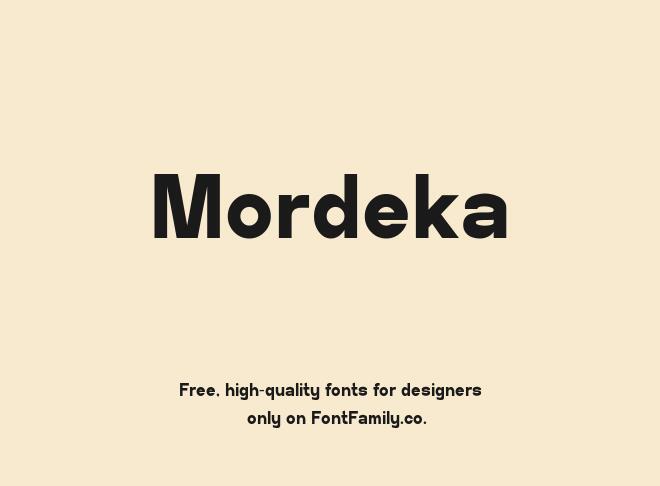
Mordeka Font
Mordeka Font is a bold, modern, and display typeface crafted by Creative Fabrica. It is characterized by its strong and dynamic style, making it perfect for creating eye-catching headlines, powerful posters, and impactful logos. Compared to other bold typefaces like Impact or Arial Black, Mordeka Font offers a unique blend of simplicity and personality. Its modern design lends itself well to contemporary and digital design projects. The font's boldness makes it ideal for high visibility uses and its modern twist makes it a fresh alternative to classic bold fonts. Choose Mordeka Font for your design project to make a strong and modern statement.